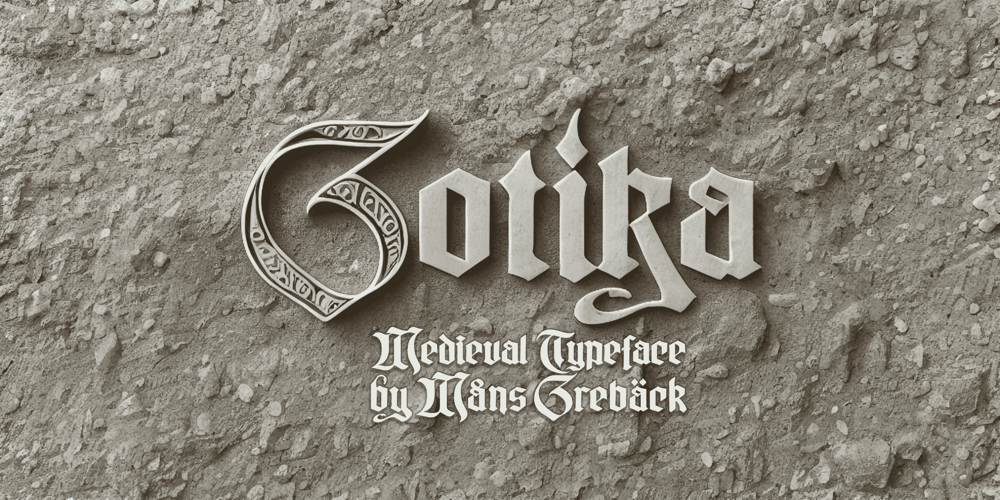
Gotika Font Family was designed by Måns Grebäck and published by Mans Greback. Gotika contains 7 styles and family package options. Gotika, designed by Mans Greback, is a collection of blackletter fonts that masterfully blend Gothic influences with modern sensibilities. Comprising Gotika Black, Gotika Strict, and Gotika Ornament, this font family showcases the craftsmanship of calligraphy and the elegance of the medieval era.Gotika Black is a bold, street-inspired typeface, while Gotika Strict combines the historic charm of blackletter calligraphy with geometric precision. Gotika Ornament is a decorative font with Middle Ages-inspired floral designs, perfect for creating intricate and eye-catching visuals.Each font within the Gotika family is built with advanced OpenType functionality and has a guaranteed top-notch quality, containing stylistic and contextual alternates, ligatures, and more features; all to give you full control and customizability. The family has extensive lingual support, covering all Latin-based languages, from Northern Europe to South Africa, from America to South-East Asia. It contains all characters and symbols you’ll ever need, including all punctuation and numbers.Mans Greback is a Swedish typeface designer, dedicated to crafting diverse and versatile fonts. With a passion for design and typography, he has developed a broad range of fonts that are utilized by designers around the world.